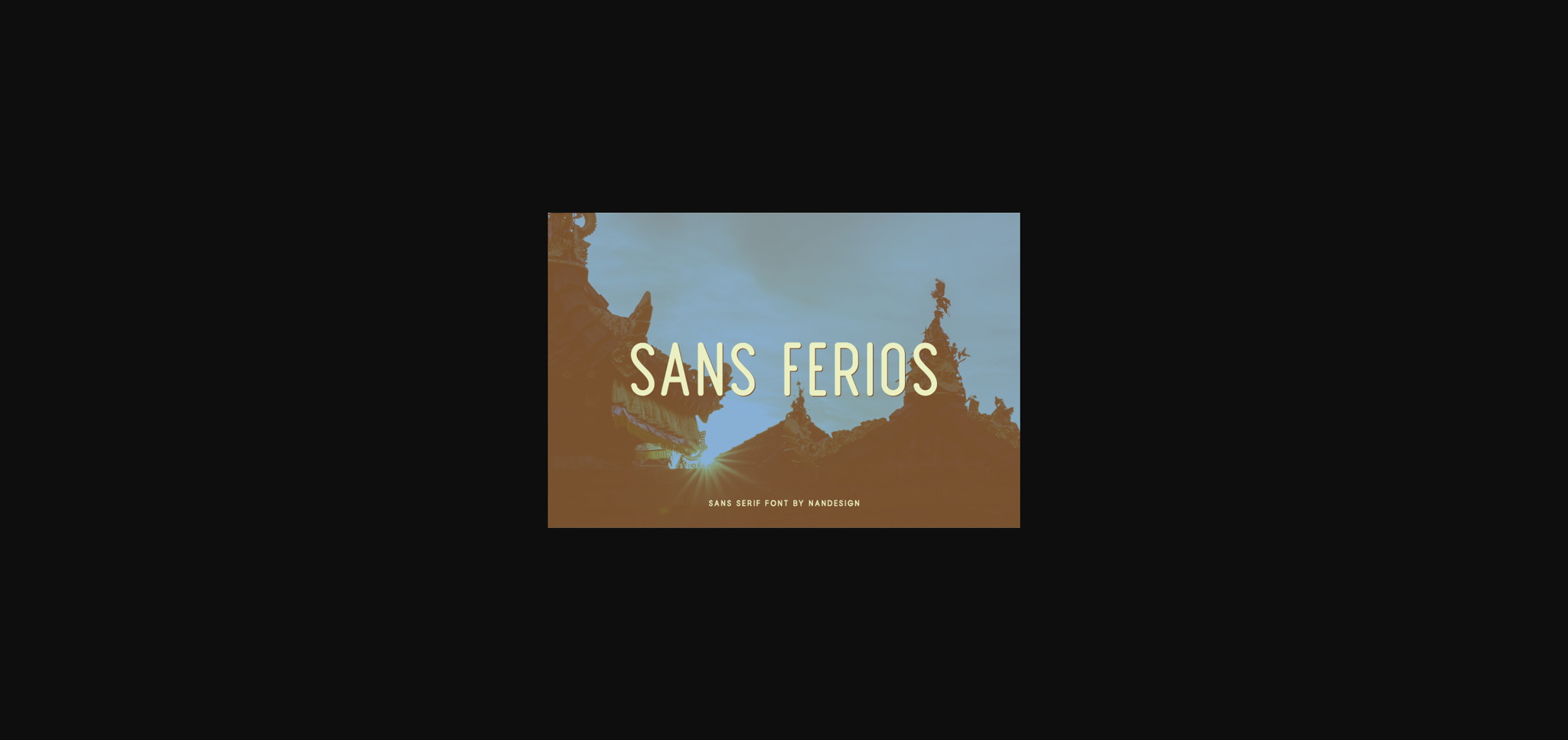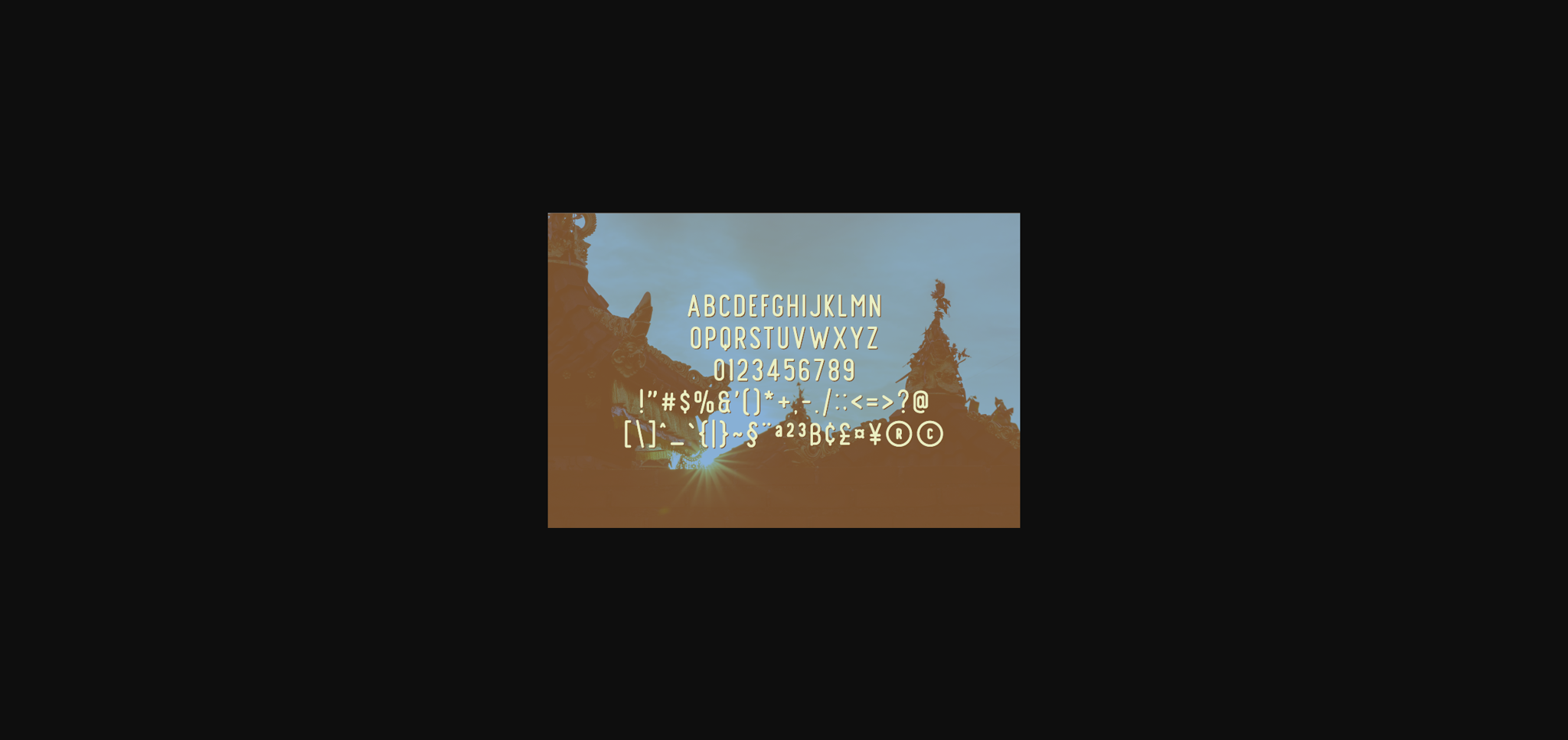
About Sans Ferios Font
Sans Ferios is a great sans serif font that will complement all your designs! It has extended characters that will look particularly adept when used in logos, branding, packaging design, and much more. This masterfully designed typeface is a true must-have.